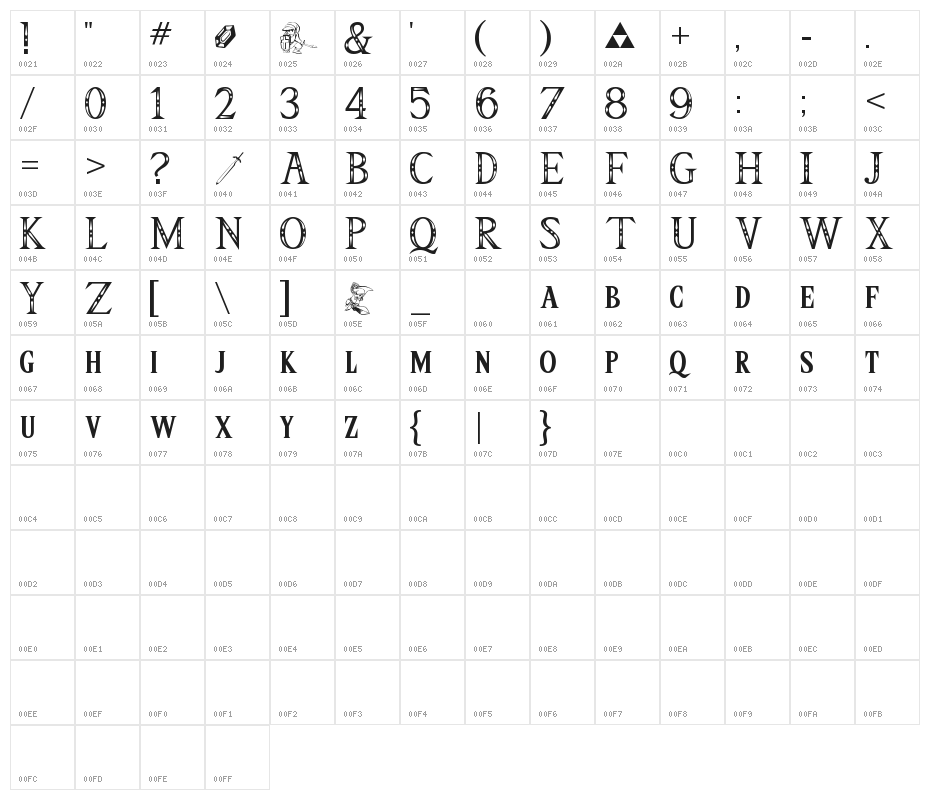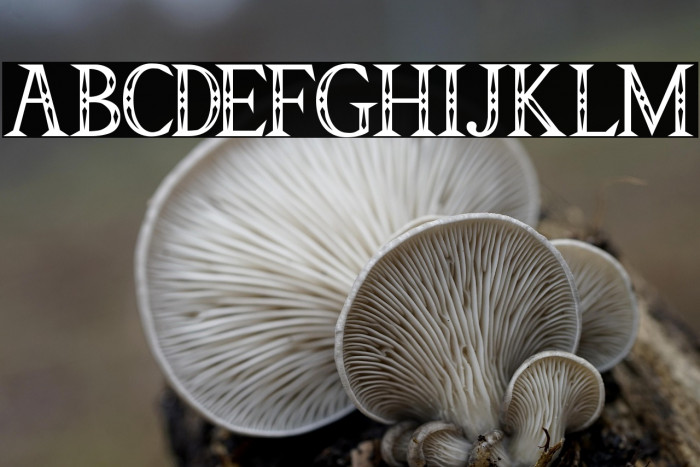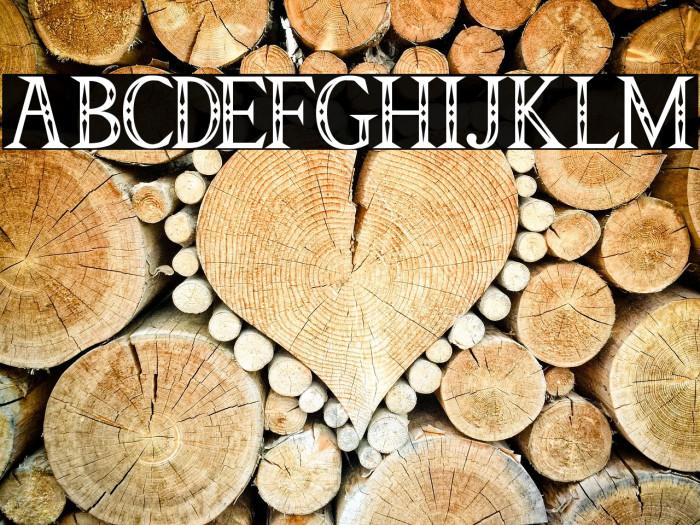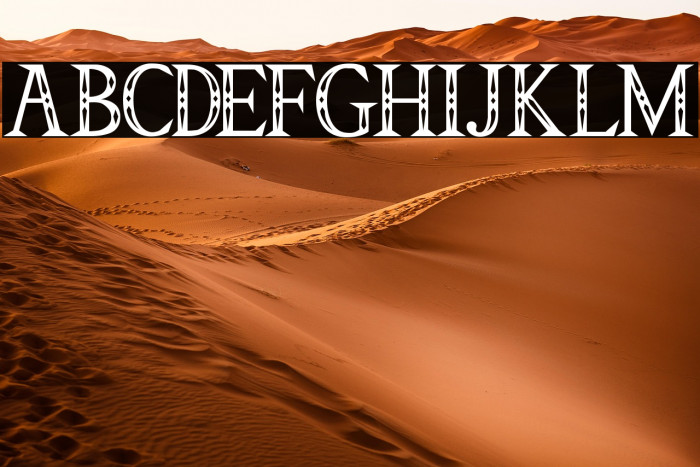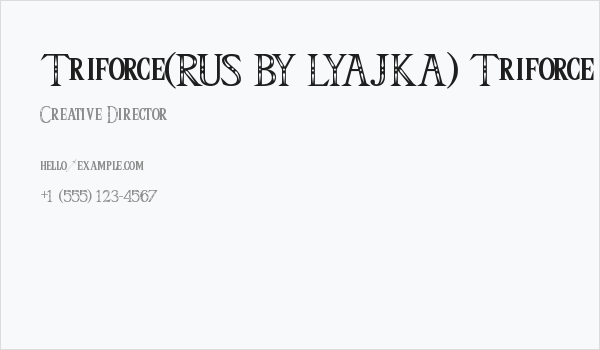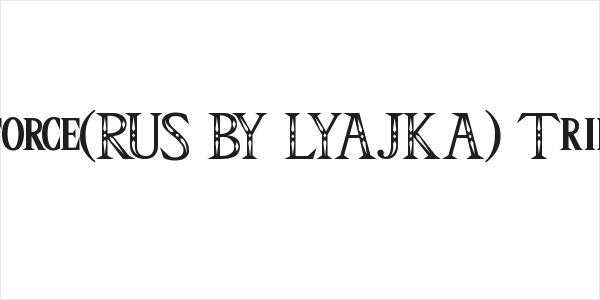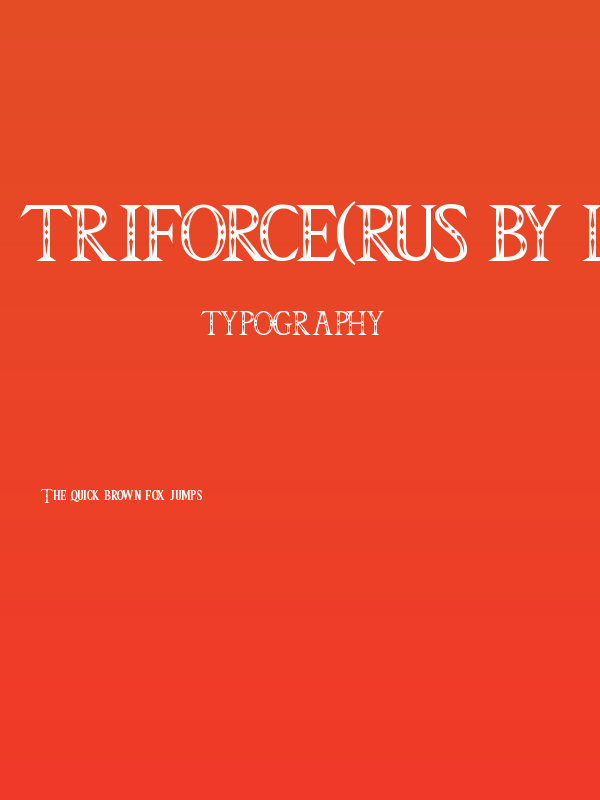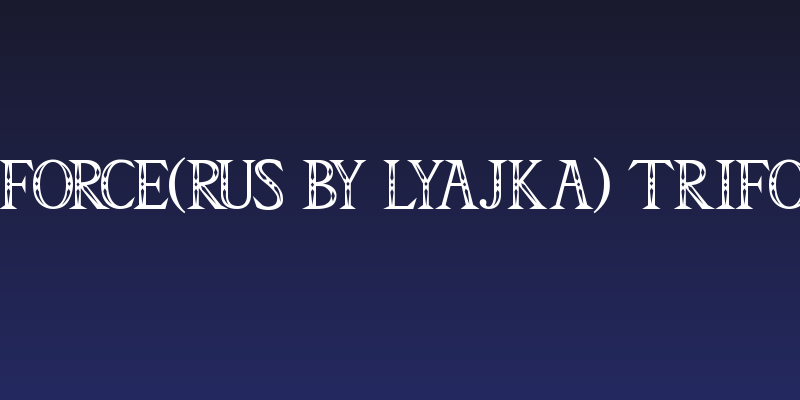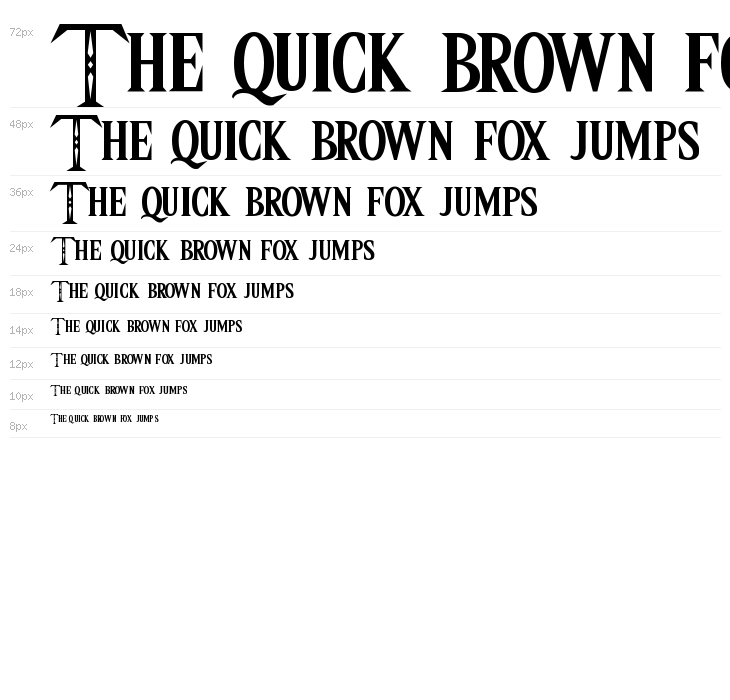
Triforce(RUS BY LYAJKA) Triforce Font
Triforce(RUS BY LYAJKA) Triforce Description
This font features a unique and decorative style, incorporating intricate patterns within the letterforms that evoke a sense of fantasy and adventure. The uppercase letters are bold and striking, with angular serifs and a distinct geometric influence. The lowercase letters maintain the same decorative elements, ensuring consistency across the typeface. Numbers are equally stylized, with a playful yet sophisticated appearance. Special characters include a variety of symbols that complement the adventurous theme, making this font ideal for creative projects. The overall design is both eye-catching and versatile, suitable for a range of applications.
| Proposed Projects | Ideal for fantasy-themed projects, video game titles, book covers, and creative branding. |